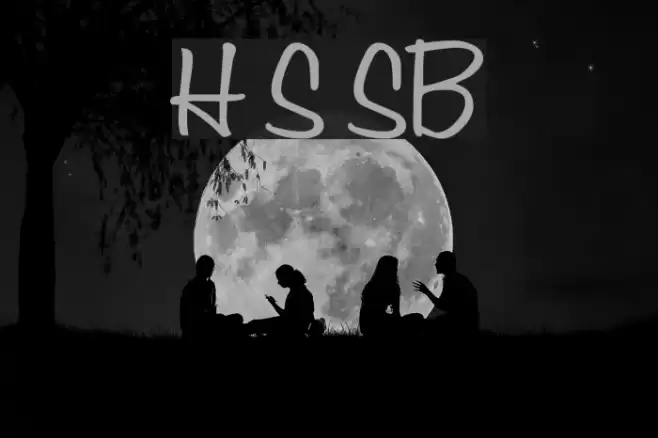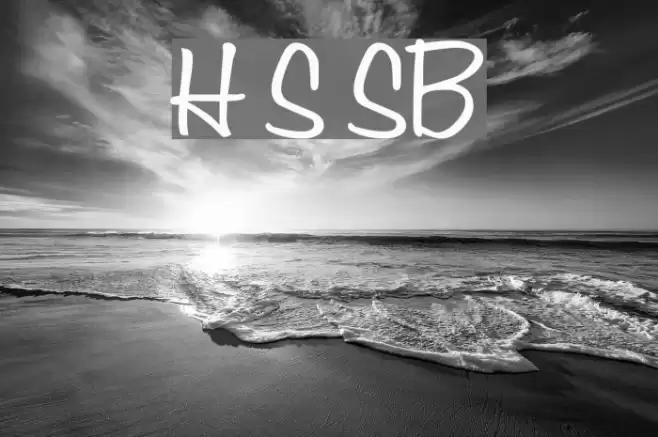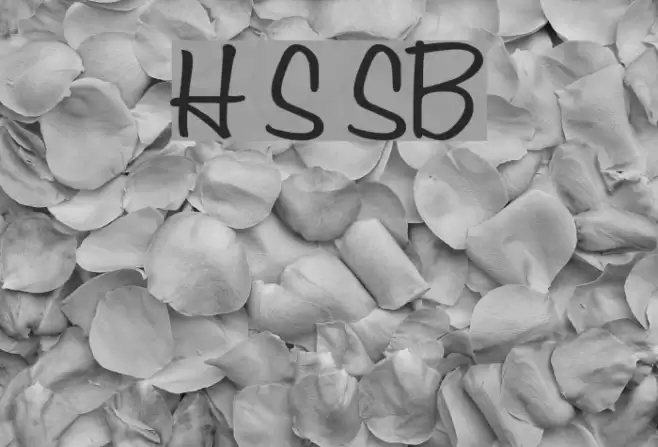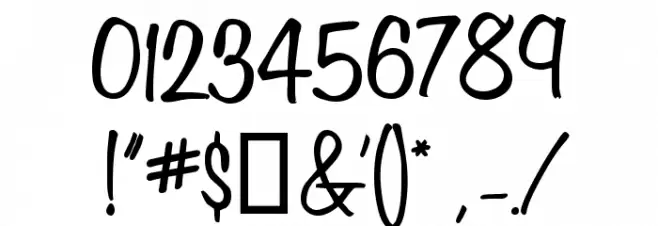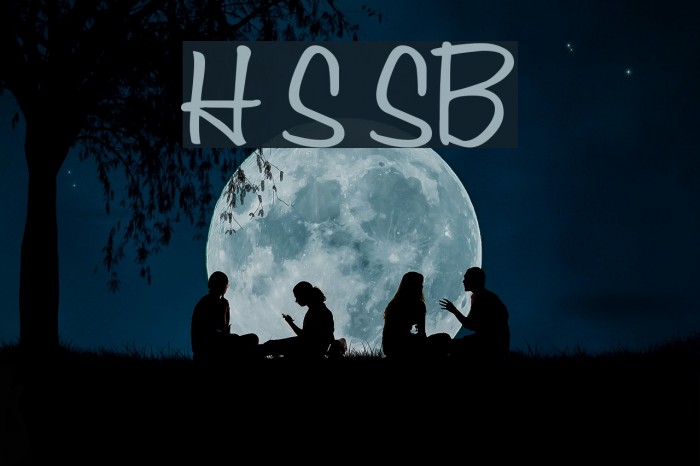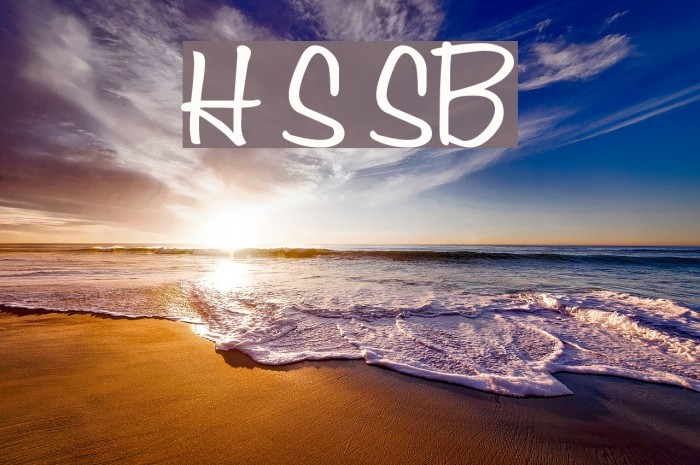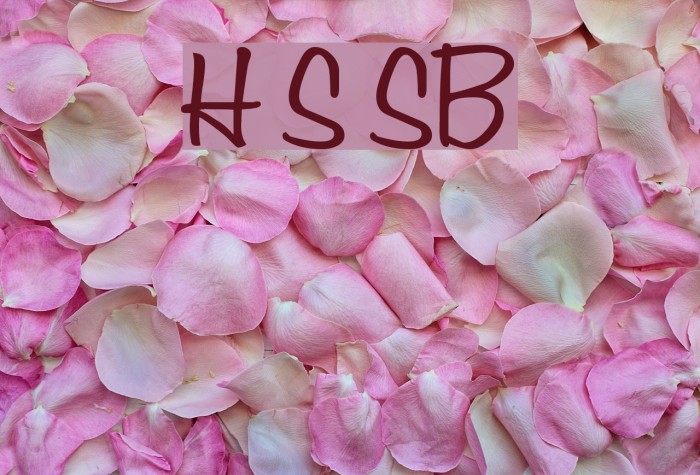
Honey Script SemiBold Font
Honey Script SemiBold Description
This font exudes a playful and casual elegance, combining the fluidity of script with a semi-bold weight that enhances readability. The uppercase letters are tall and slightly narrow, giving a sense of sophistication, while the lowercase letters feature smooth, flowing curves that mimic natural handwriting. The numerals are consistent with the overall style, maintaining a balance between legibility and aesthetic appeal. Special characters are thoughtfully designed, ensuring they complement the alphabetic characters seamlessly. This font's charm lies in its ability to convey a sense of warmth and approachability, making it suitable for a variety of creative applications.
A playful, semi-bold script font with elegant, flowing curves from Handwritten fonts.
- Proposed Projects: Ideal for invitations, greeting cards, branding, and social media graphics.
- Overall Style: Casual, Elegant
- Use Case: Headlines, Logos, Invitations